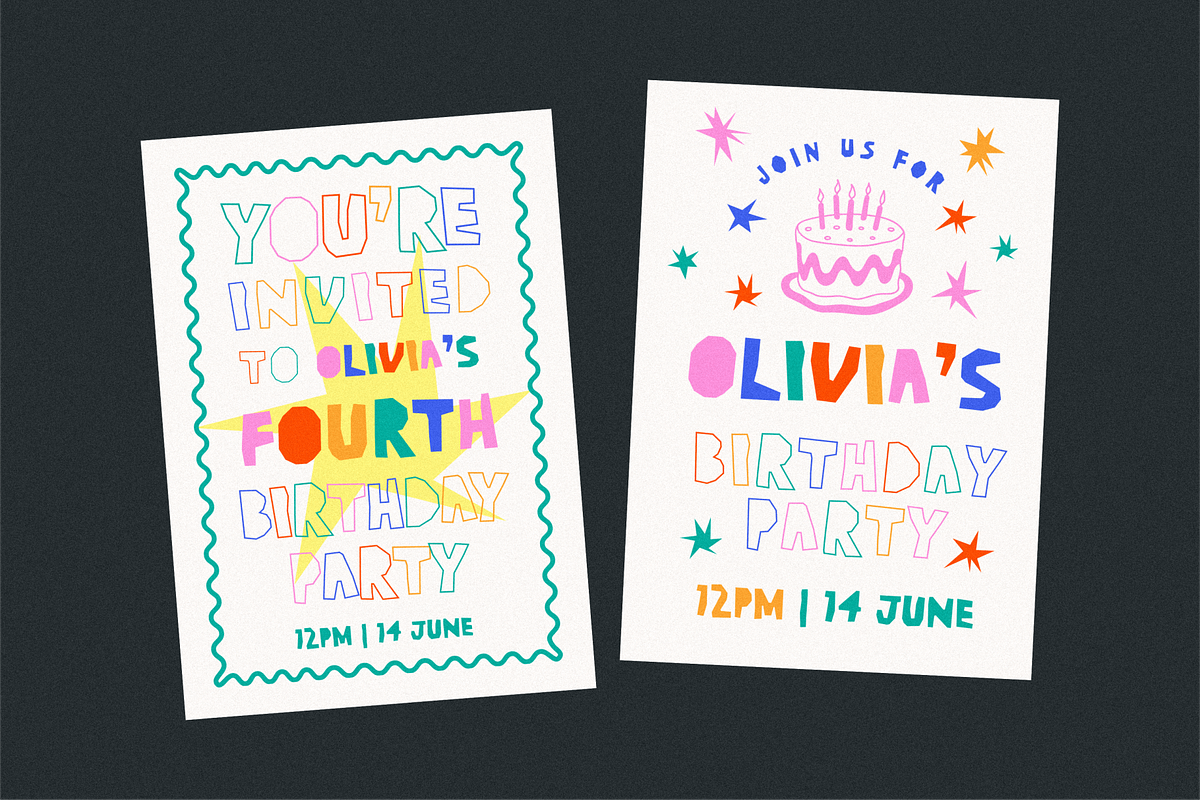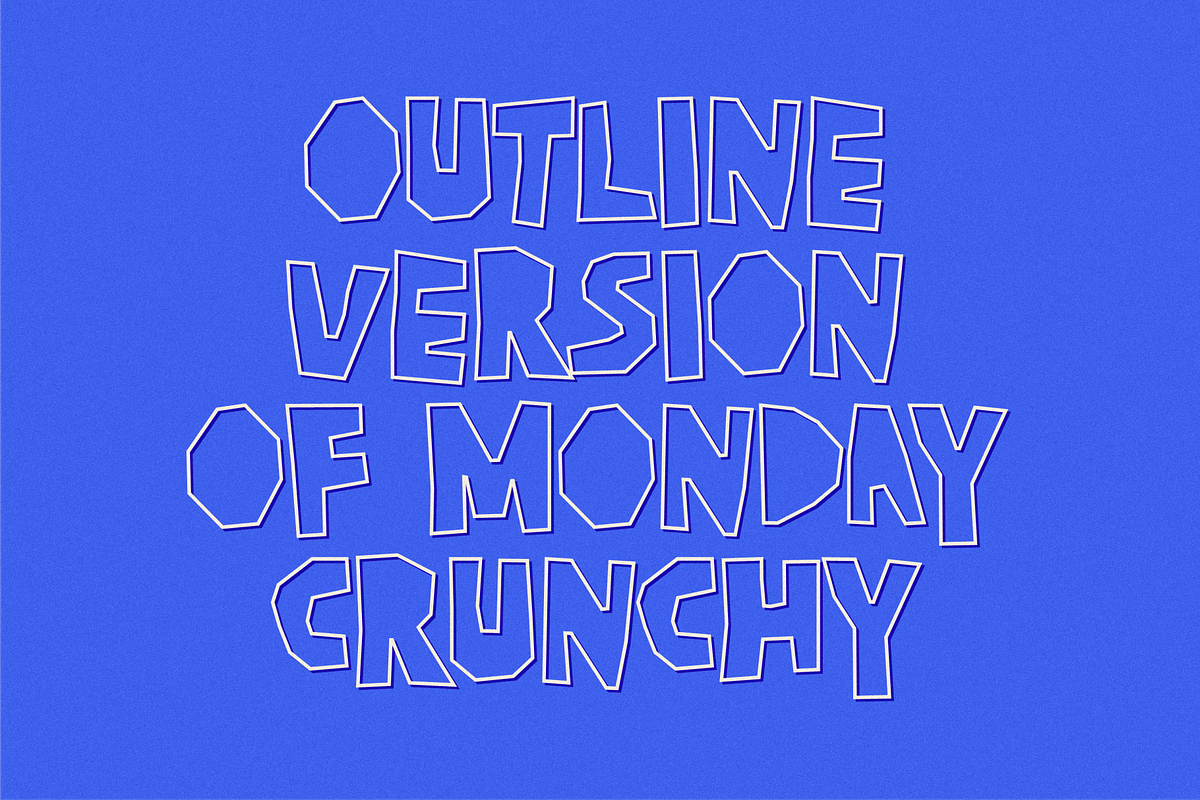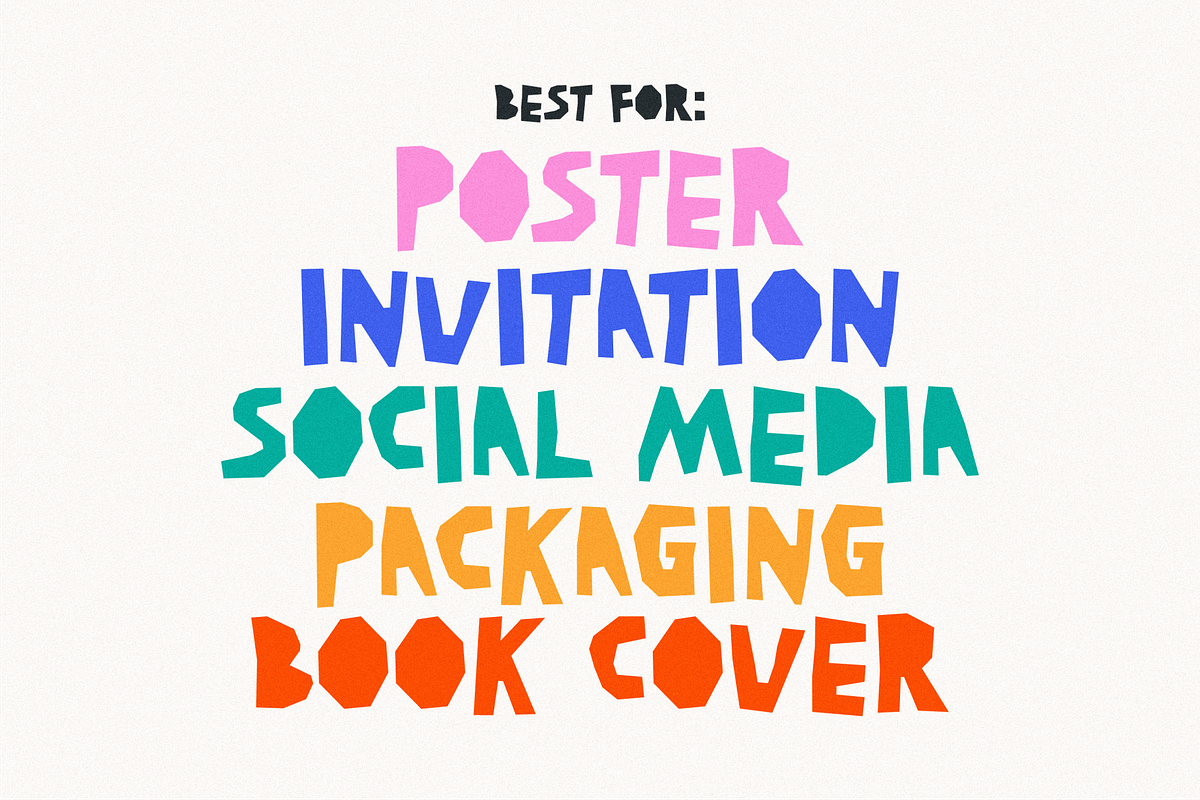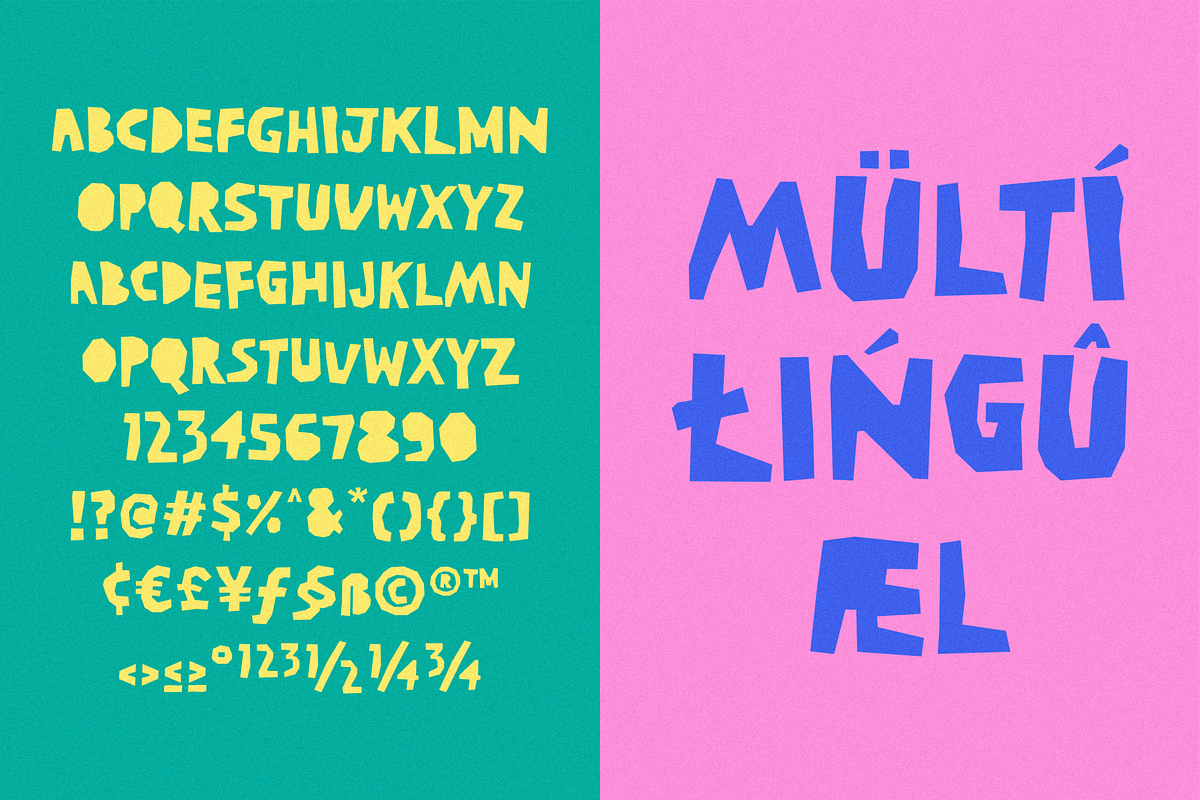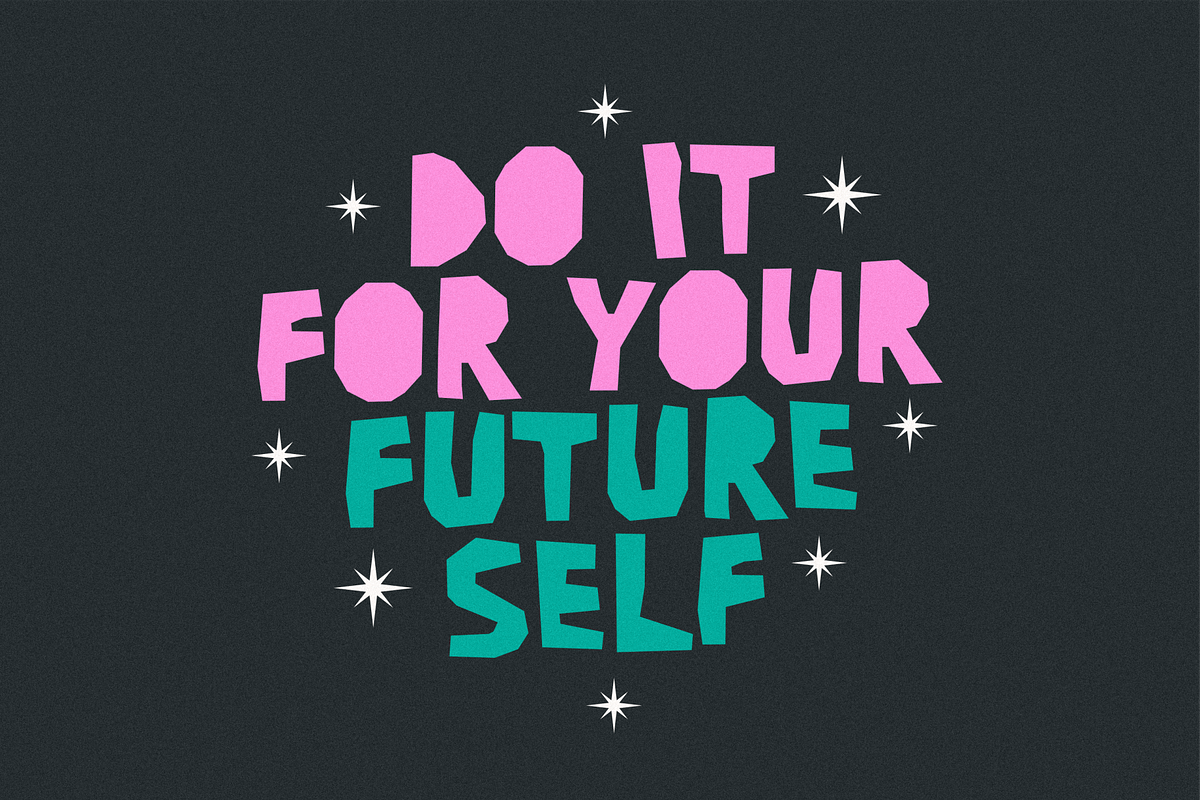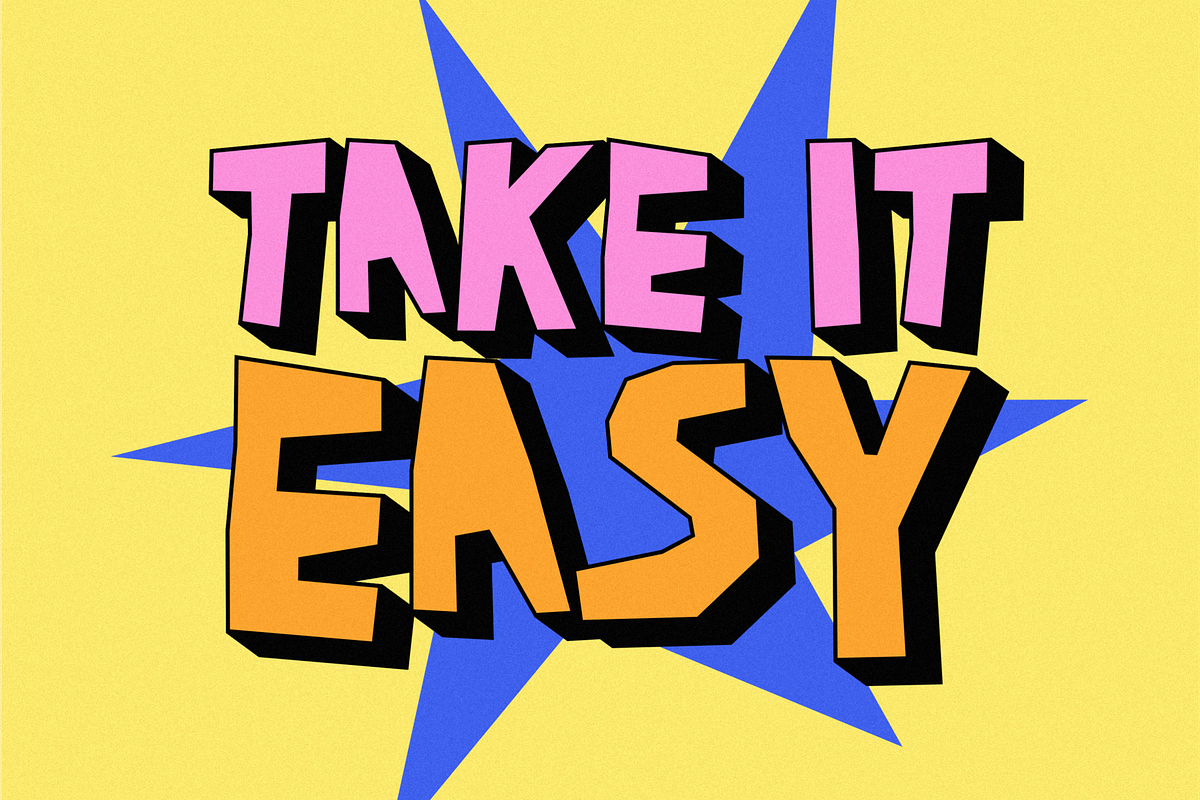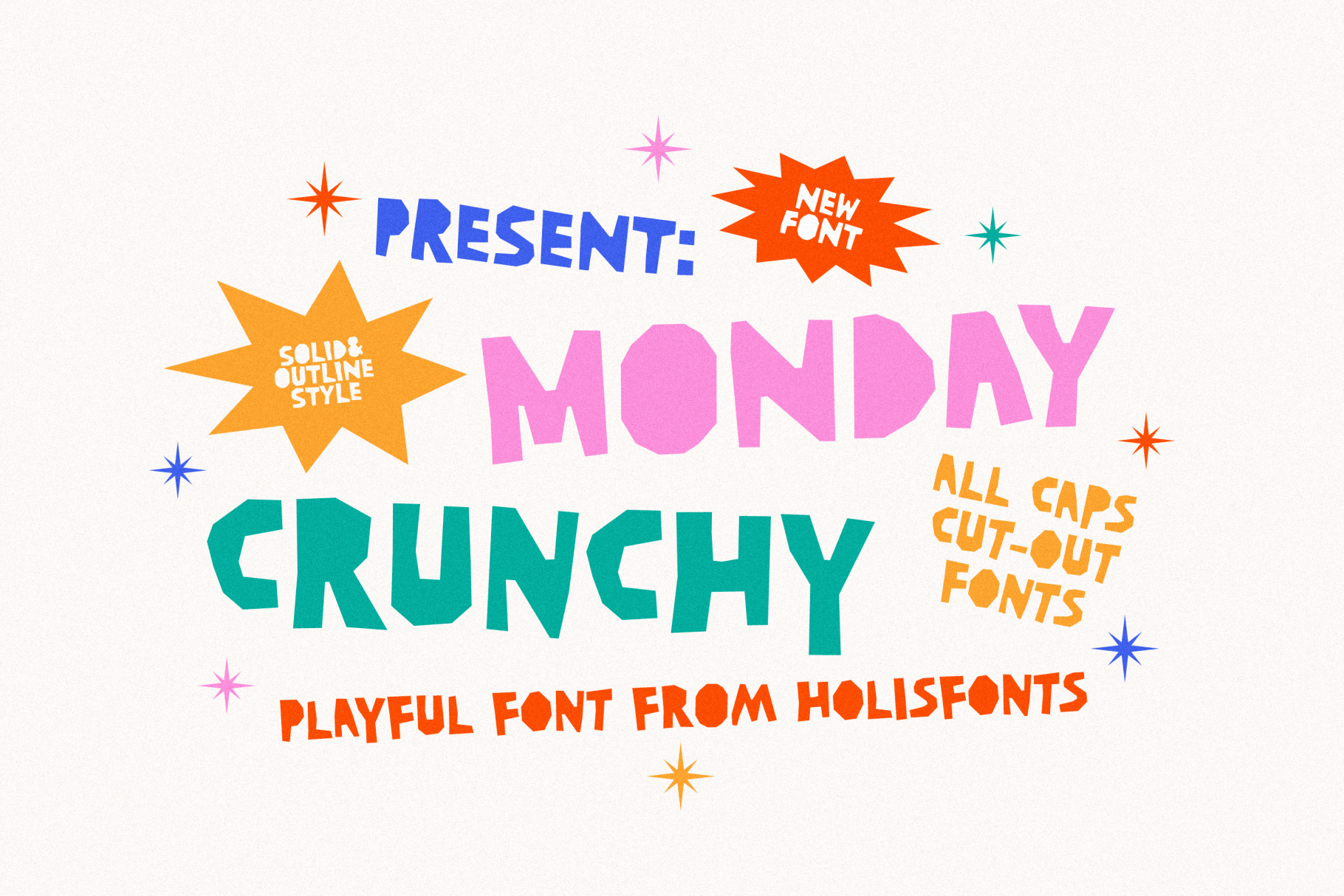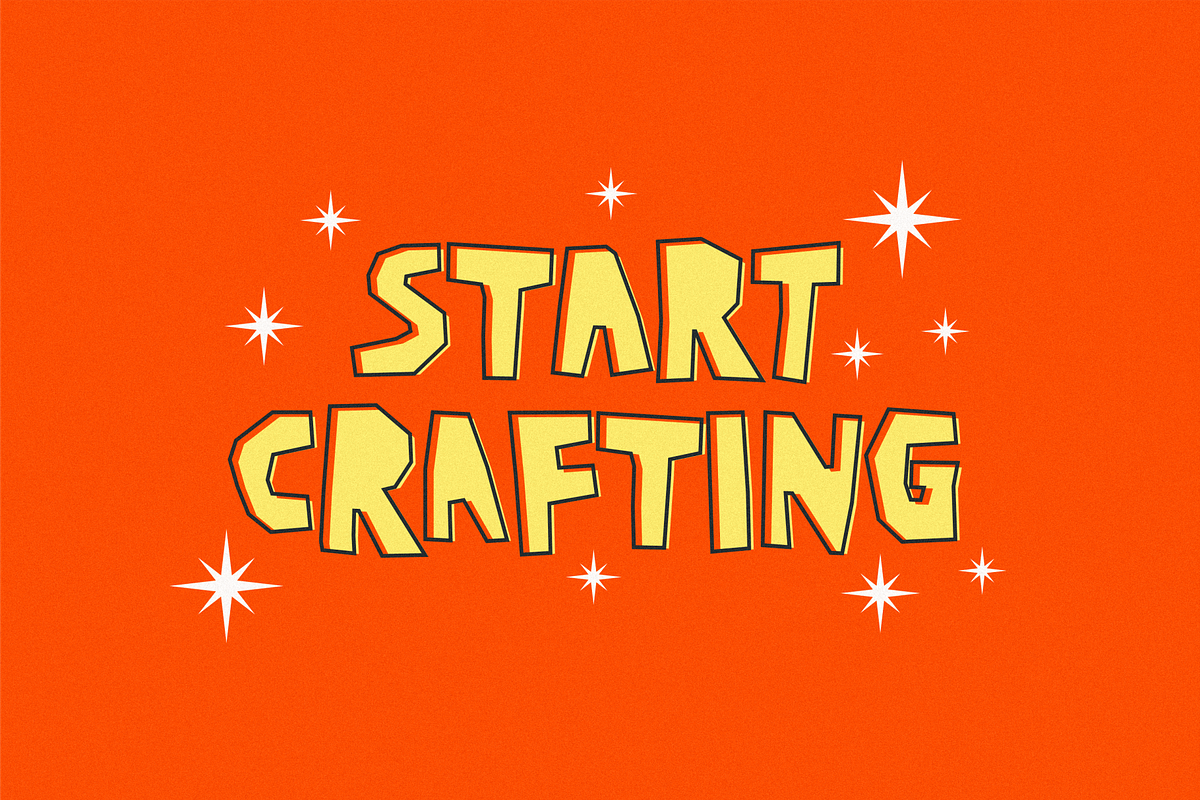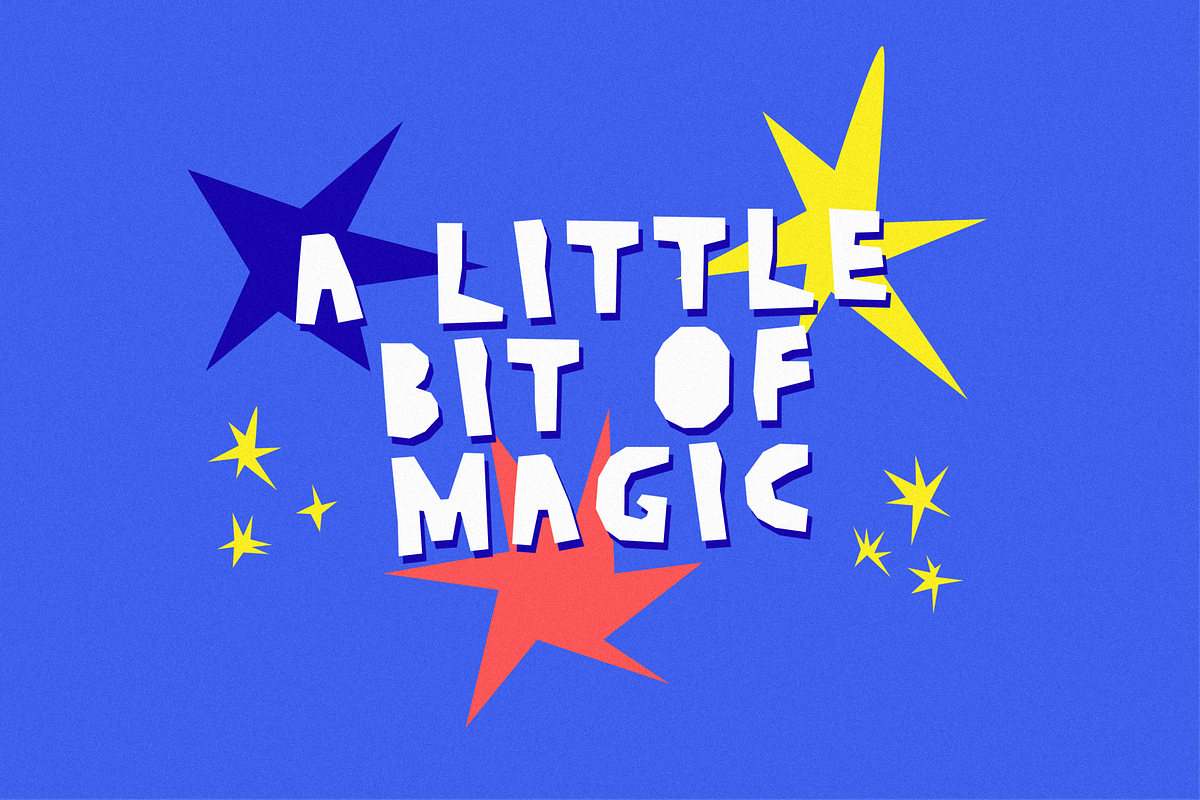
Monday Crunchy Quirky Cutout Font
Meet Monday Crunchy, a vibrant, quirky, and playful paper cut-out style font duo designed to bring an instant dose of joy to your creative projects! With both Solid and Outline versions included, this handcrafted typeface mimics the imperfect charm of hand-cut paper, making it perfect for standout designs.
Two Styles Included: Monday Crunchy Solid & Monday Crunchy Outline.
Playful All-Caps Design: Perfect for high-impact display use.
Complete Set: Includes uppercase letters, numbers, punctuation, and multi-currency symbols.
Multilingual Support: Access accented glyphs for international designs.
Quirky Handcrafted Vibe: Delivers a modern, artsy, and organic craft aesthetic.
Children's books, birthday party invitations, school projects, apparel & merchandise, brand packaging, social media quotes, editorial design, and retro-themed posters.